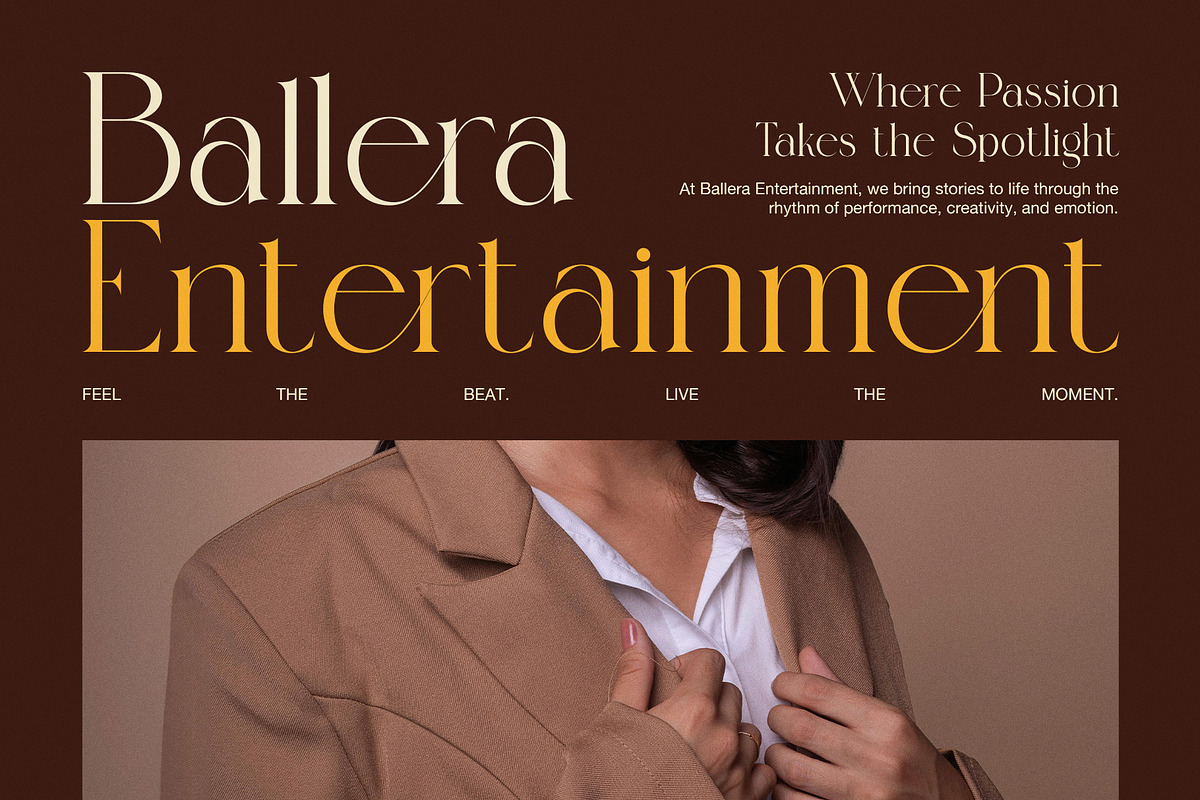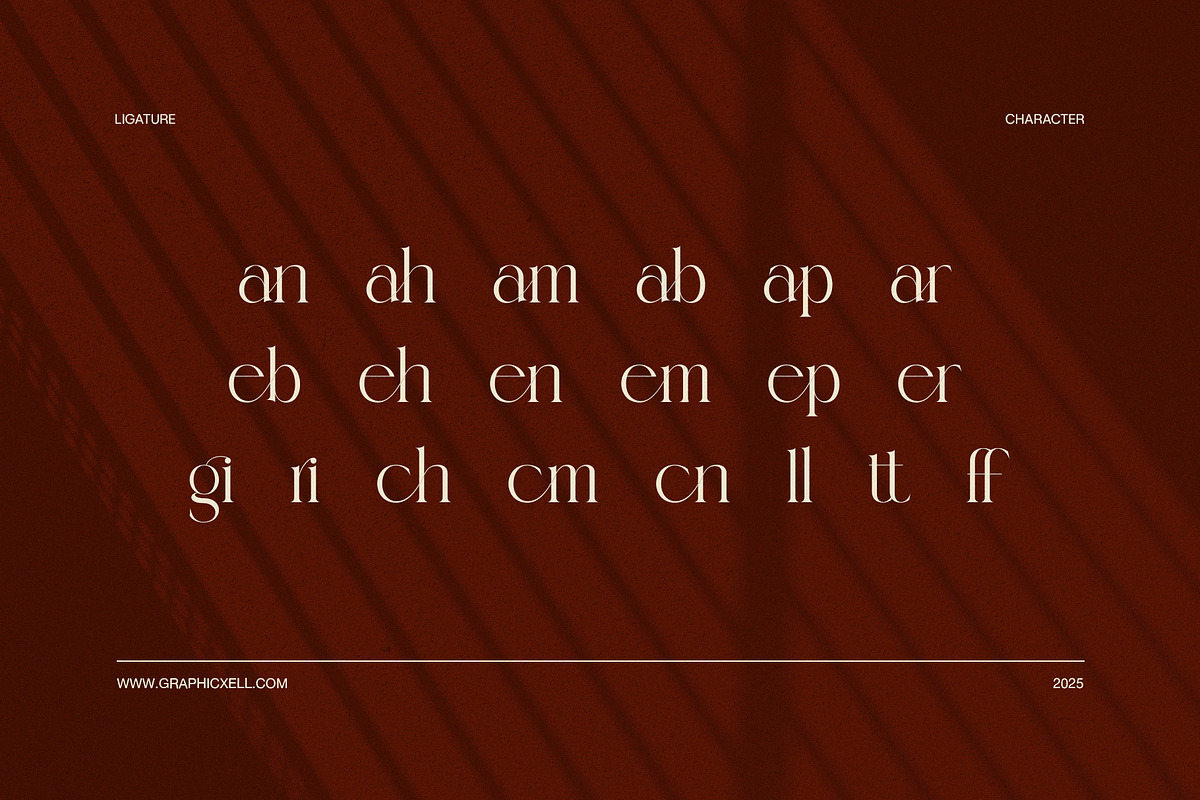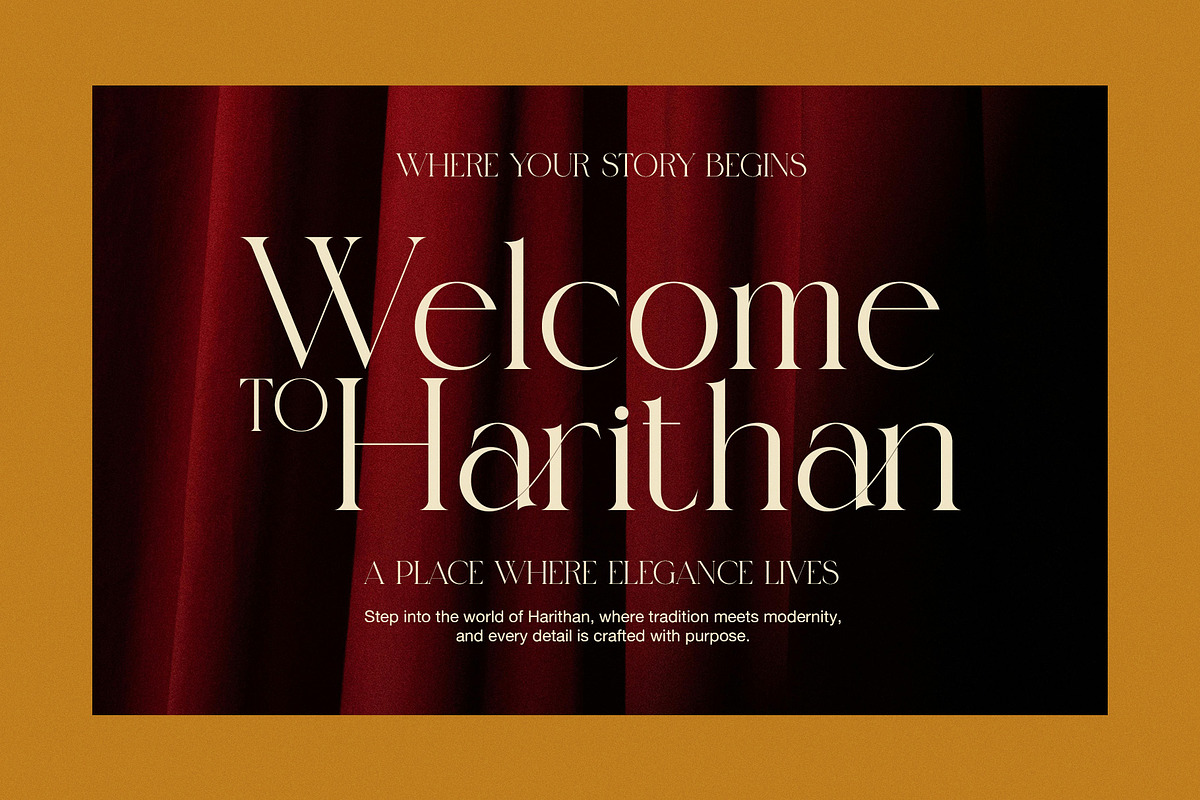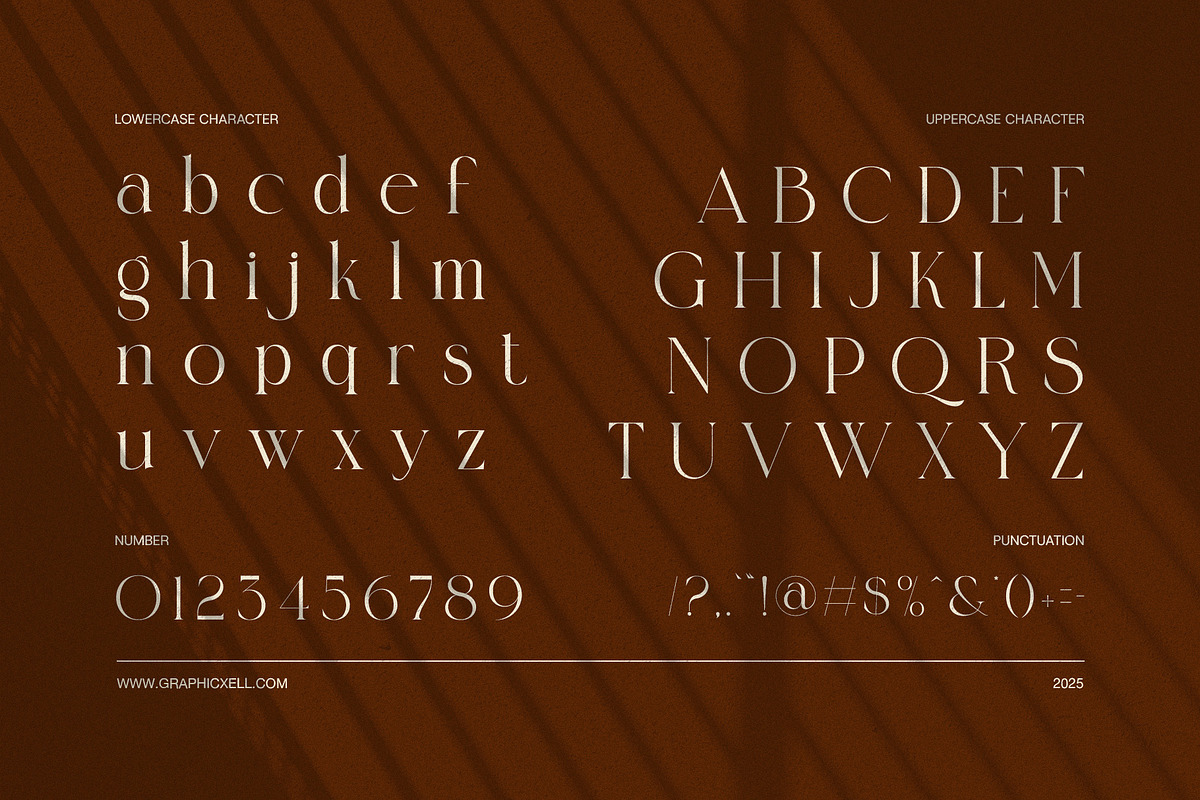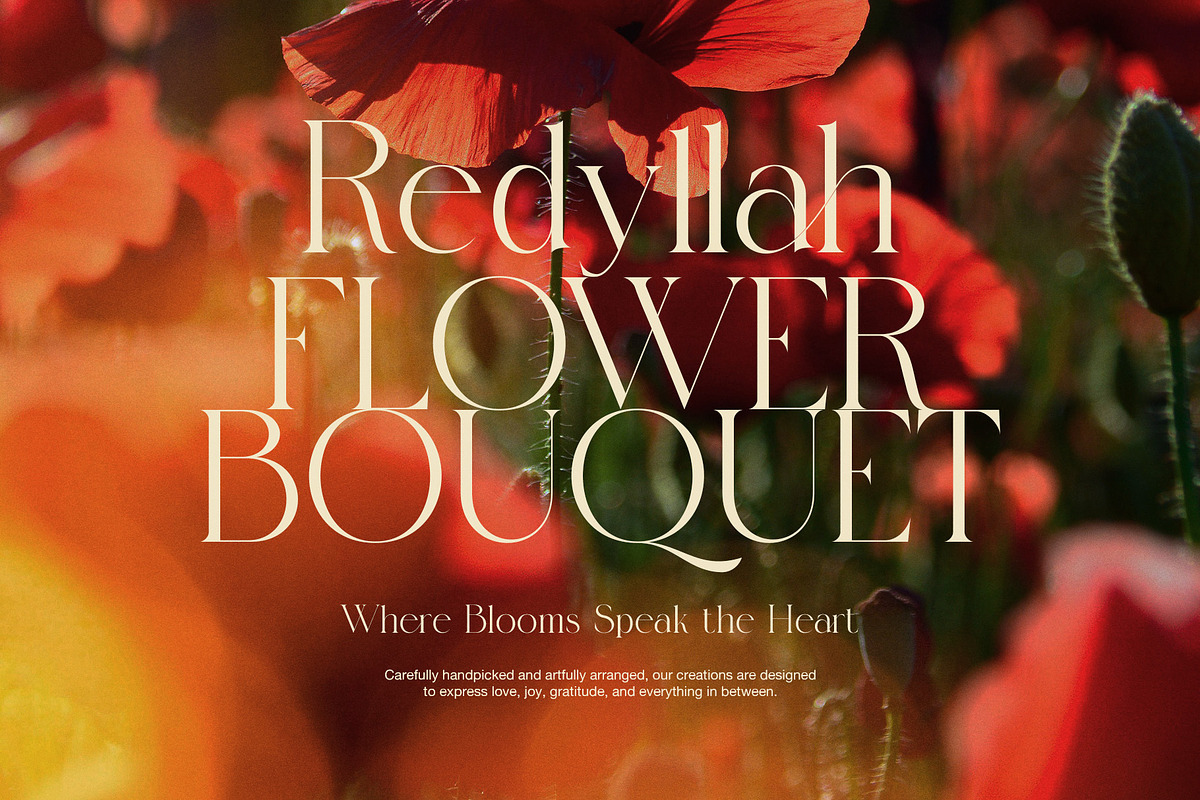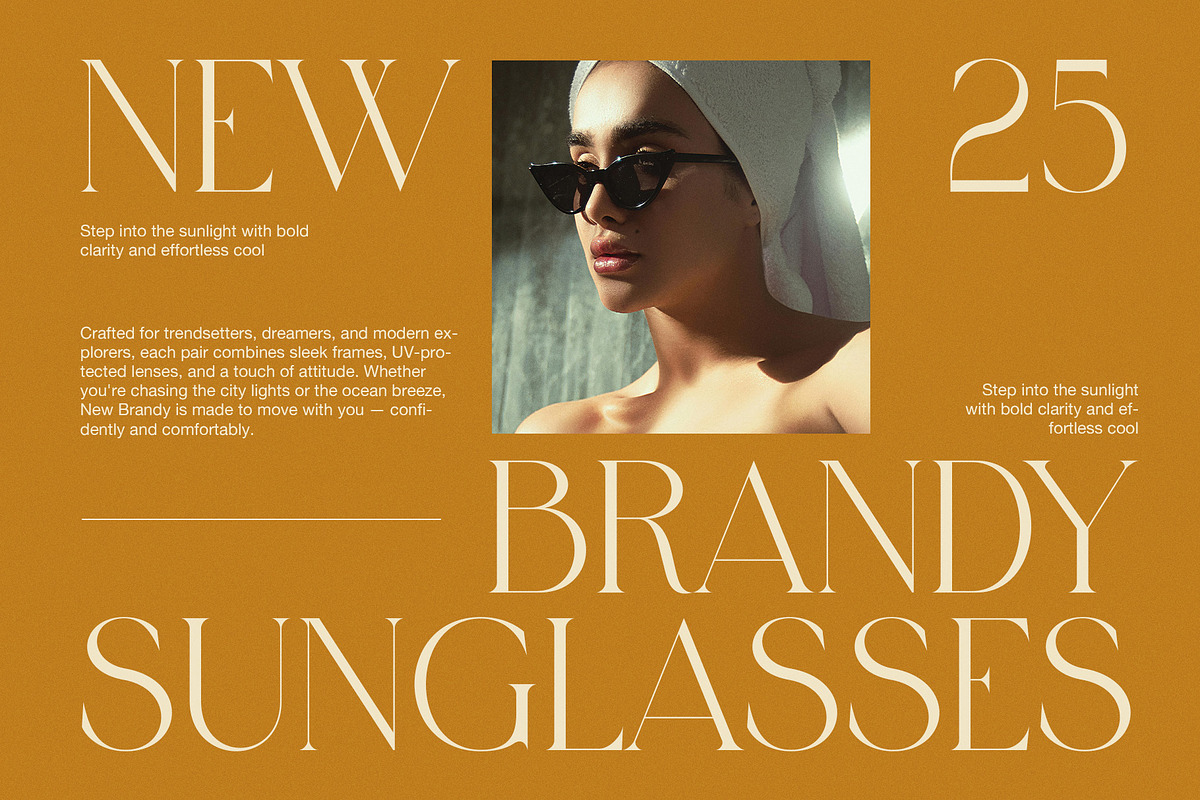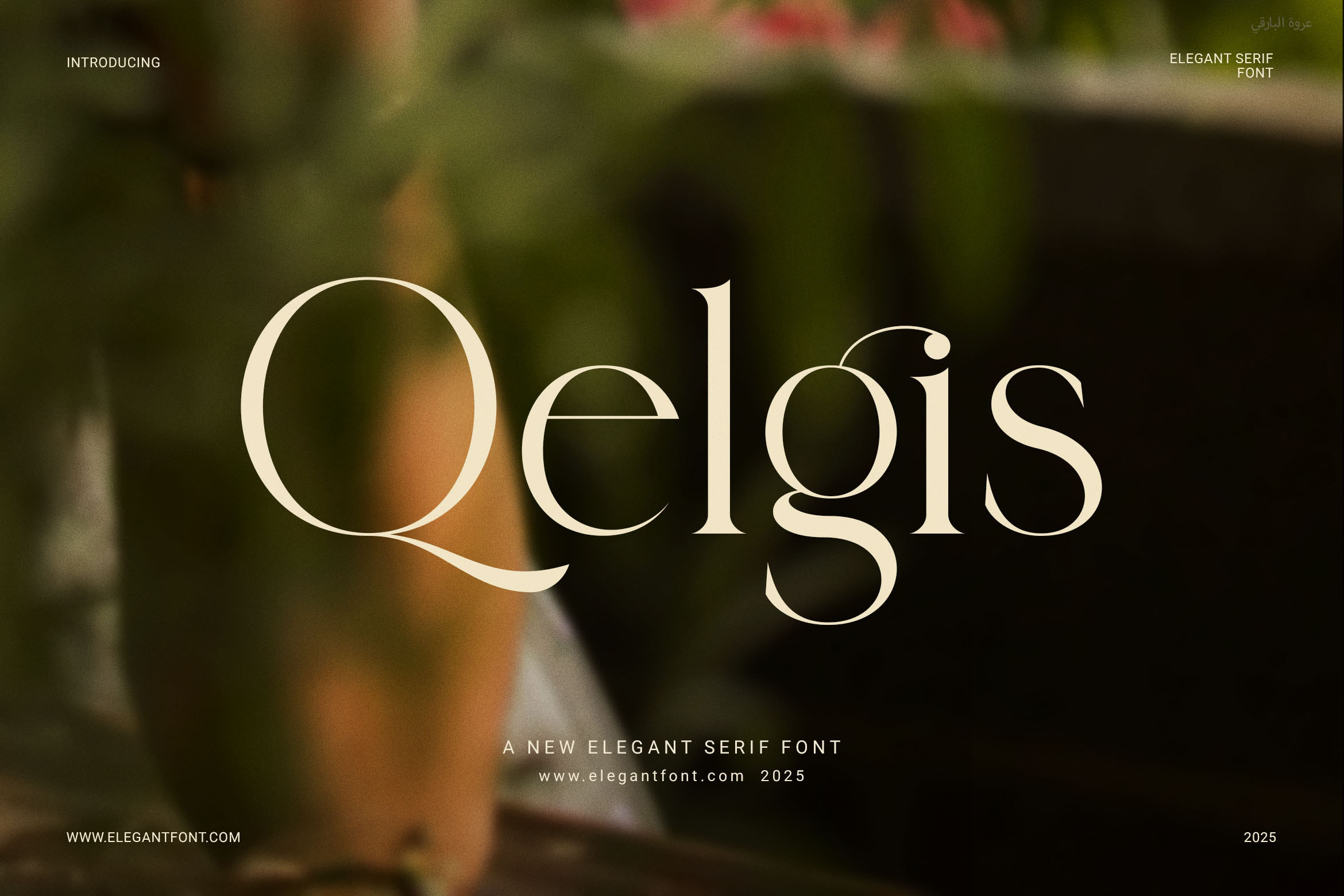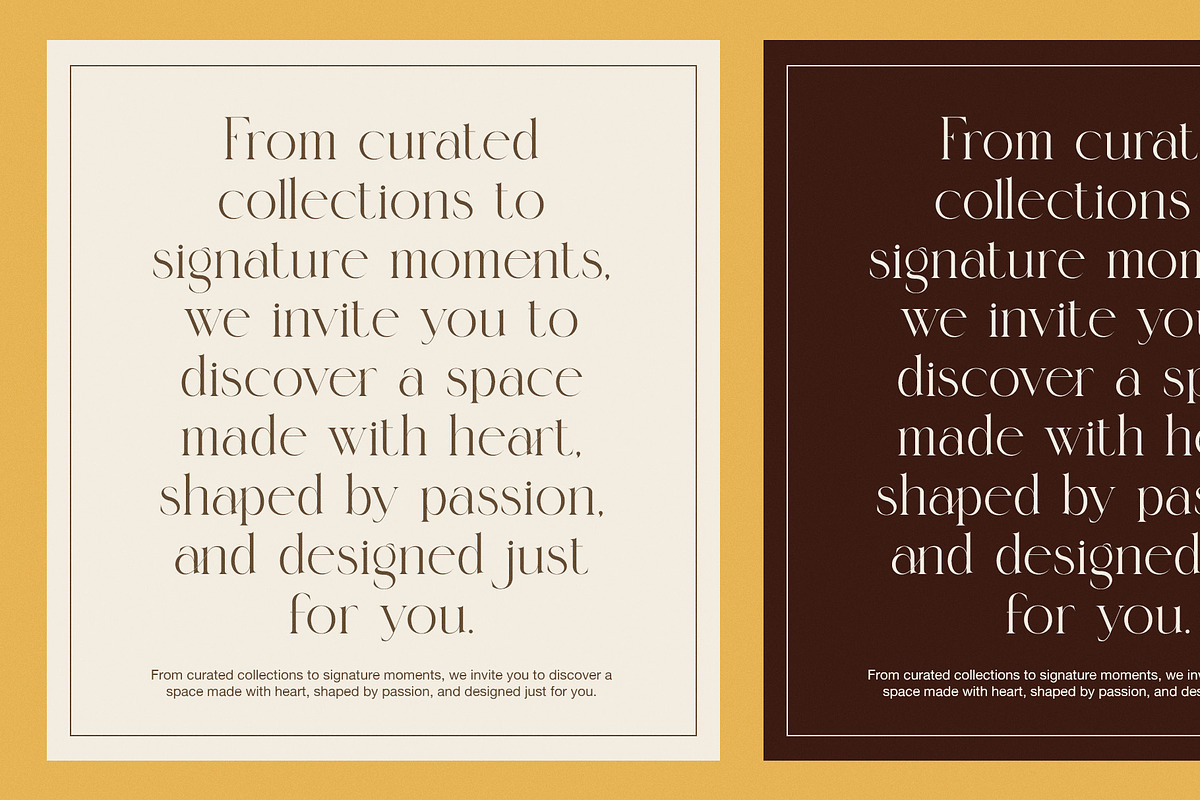
Qelgis Stylish Serif Font
Qelgis Stylish Serif Font is a modern and elegant typeface designed to elevate your creative projects. With its clean lines and well-balanced letterforms, this font delivers a timeless look that works beautifully across many applications.
Not only is Qelgis visually appealing, but it’s also highly functional. Its proportional shapes and smooth flow make it suitable for both digital and print designs. In addition, the font includes stylish ligatures that enhance the overall look of your text, giving it a more refined and creative touch.
Because Qelgis is so versatile, it fits a wide variety of design needs. Whether you're creating branding materials or designing a product label, this font brings a sense of professionalism and charm. Plus, it pairs well with both serif and sans serif fonts, allowing for endless design combinations.
Stylish serif design with modern appeal
Functional ligatures for better flow
Clean and readable letterforms
Great for headlines and body text
Perfect for use in:
Logos and visual branding
Editorial design and magazines
Product packaging and labels
Websites, blogs, and digital content
Boutique brands and fashion ads
Thanks to its elegant design, Qelgis helps your message stand out without being overwhelming. Furthermore, it offers a polished look that suits both luxury and minimalist themes. This makes it a reliable choice for professionals and creatives alike.
If you’re looking for a typeface that blends beauty with flexibility, Qelgis is a great option. It’s easy to use, visually consistent, and crafted for modern design needs.